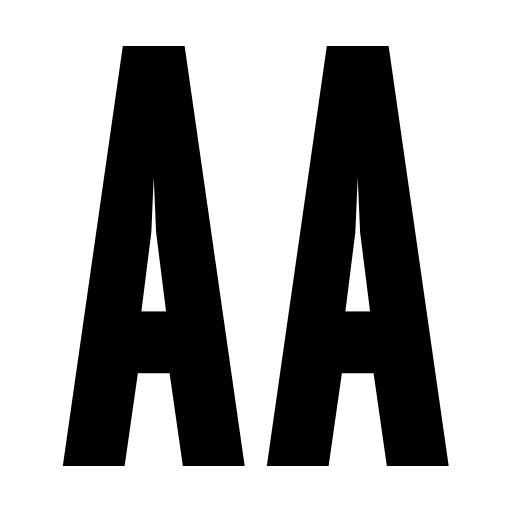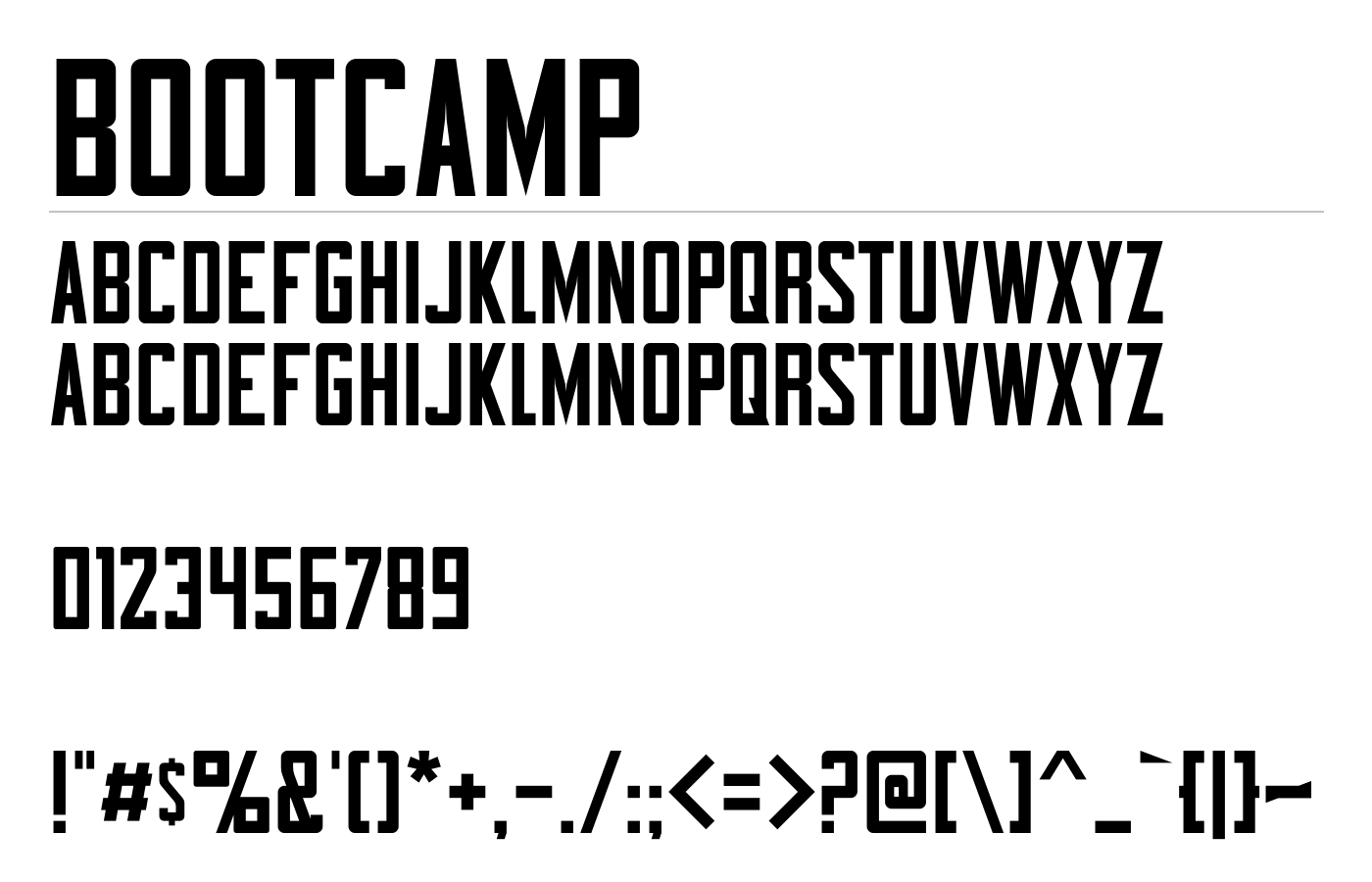
Bootcamp is a bold, condensed sans serif font with a strong, industrial feel, characterized by its tall, narrow letterforms and sharp, geometric edges. Its high-impact style makes it ideal for headlines, posters, and branding where a powerful, masculine presence is needed. This font works best for projects seeking a modern, authoritative look with a no-nonsense attitude.
Bootcamp Font